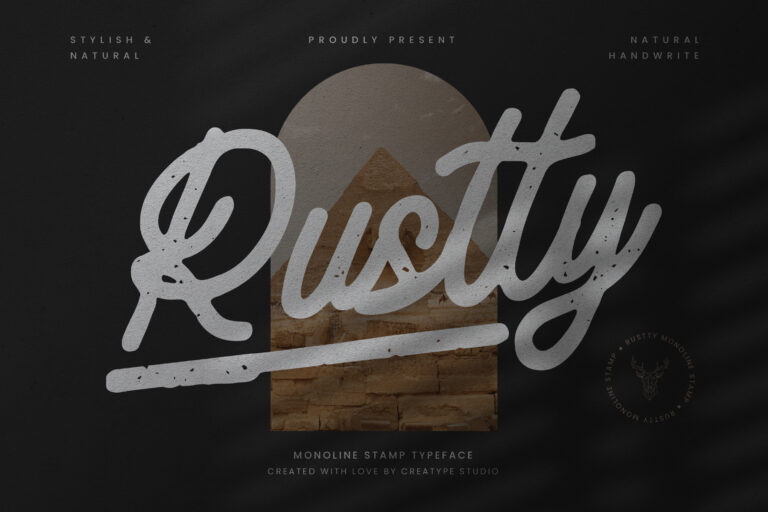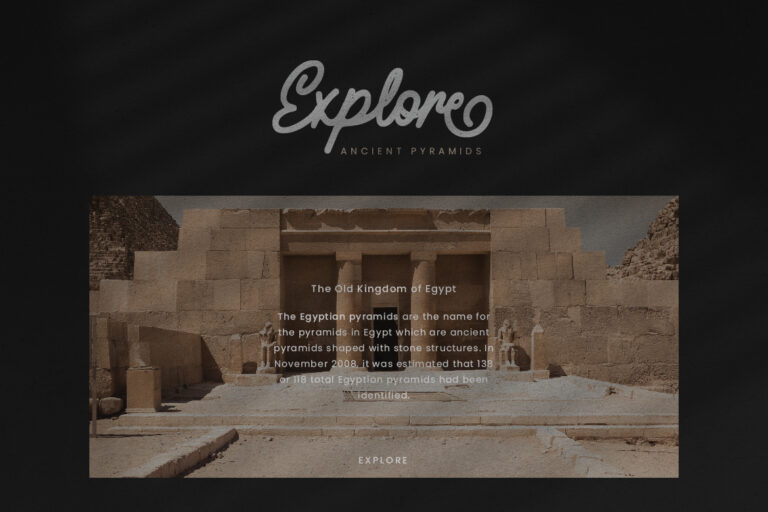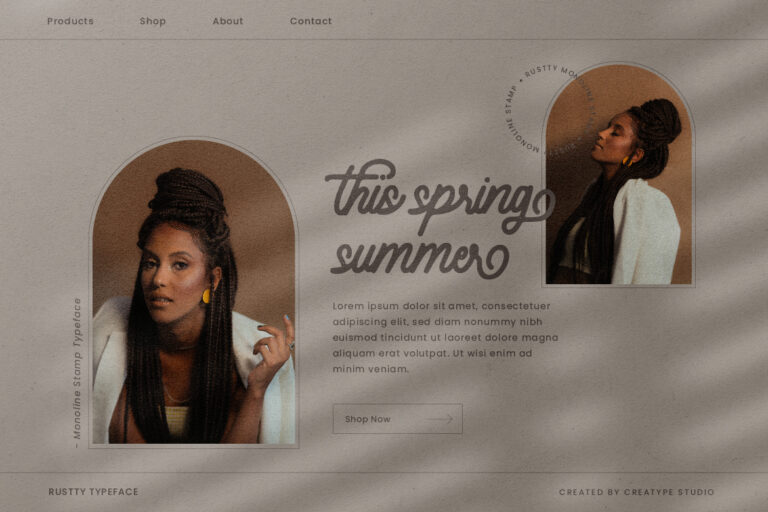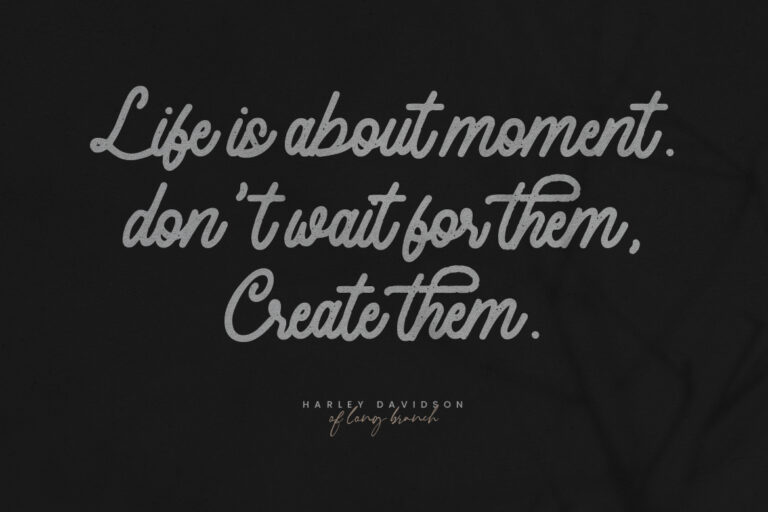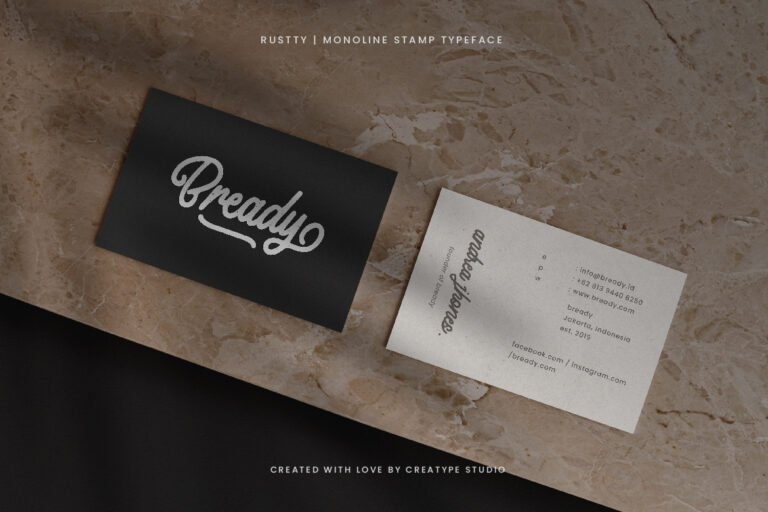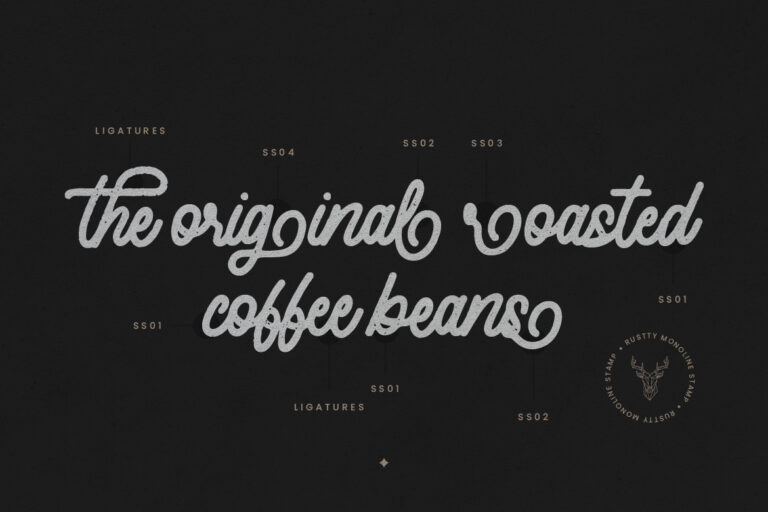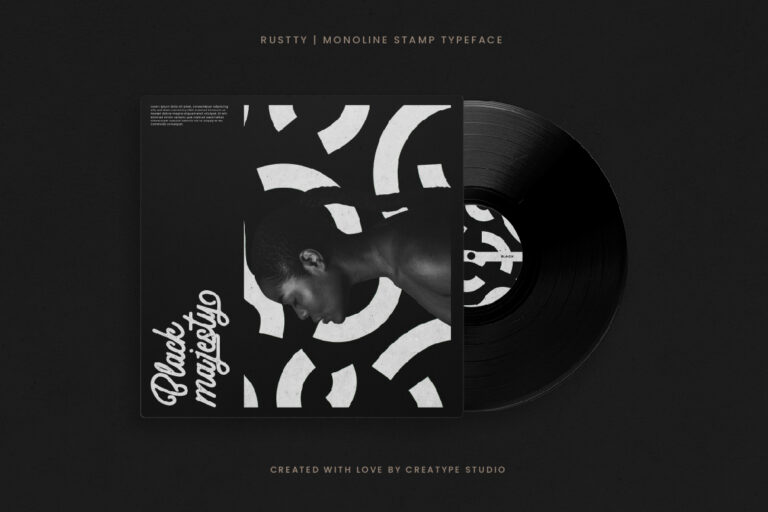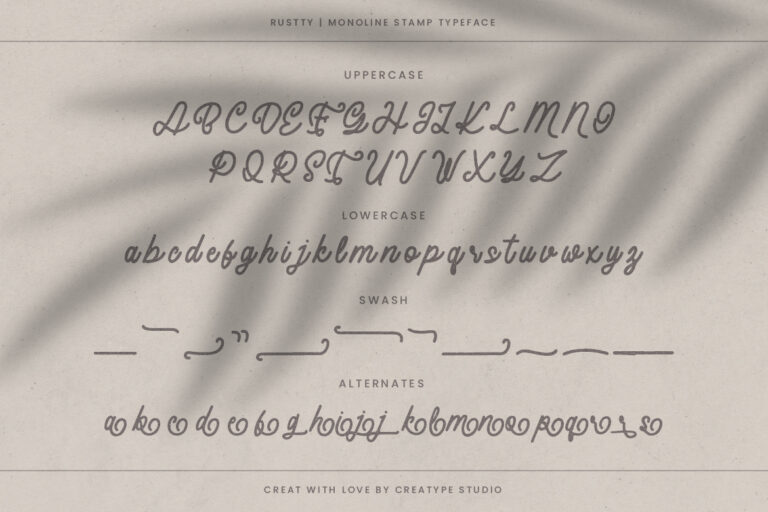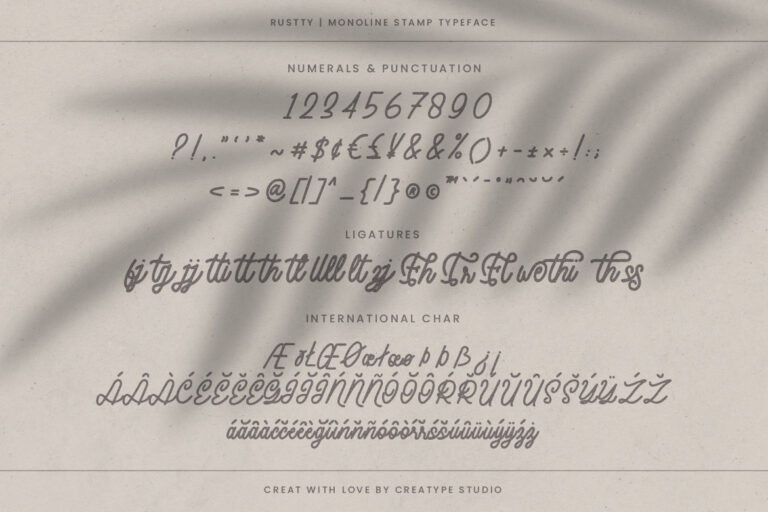
Rustty Monoline Stamp is a modern vintage font that looks elegant and natural with bold strokes that make Rustty look classy and stylish.
Rustty is perfect for branding projects, logo, wedding designs, social media posts, advertisements, product packaging, product designs, label, photography, watermark, invitation, stationery and any projects that need handwriting taste.
Rustty Monoline Stamp Typeface